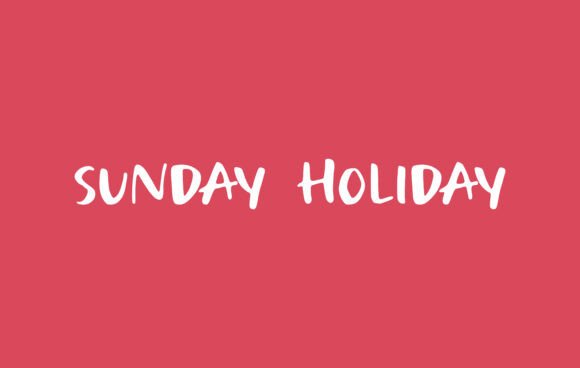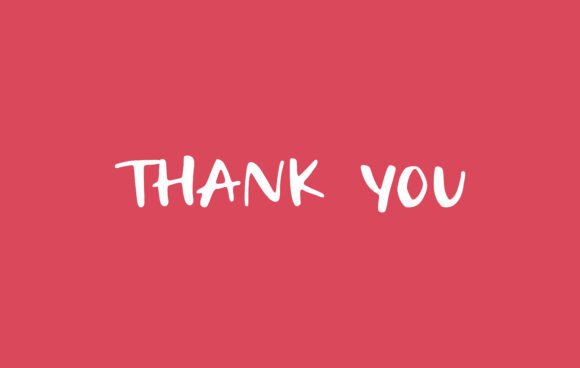
The Birth of a Beautiful Design
Have you ever been brainstorming ideas for a new project, only to have a sudden rush of creativity hit you? The words start flowing, and you can’t type them fast enough. It’s that magical moment when your ideas come alive, and you know exactly what you want to create. For designers, this feeling is a regular occurrence, but it’s the tools we use that can make all the difference. That’s where the Bursting Font comes in – a stunning, authentic handwritten font designed to elevate your creative vision.
Bursting Font is more than just a font; it’s a partner in bringing your ideas to life. Its romantic touch and legibility make it perfect for a wide range of designs, from magazine headlines to wedding invitations. Whether you’re a seasoned designer or just starting out, the Bursting Font is an invaluable asset to your toolkit, capable of taking your projects to the next level.
Bursting Font Key Features
• Font Type: Script Font
• Size: 5,500+ glyphs, making it highly customizable
• Unique Characteristics: Dynamic, flowing lines that evoke a sense of energy and movement
• Language Support: Supports multiple languages, including Latin, Cyrillic, and Greek scripts
Bursting Font Review
When I first laid eyes on Bursting Font, I was immediately struck by its ✨ energetic and playful vibe. The font’s irregular, bubbly shapes and unpredictable letter spacing create a sense of dynamic movement that’s perfect for adding a touch of whimsy to your designs. I particularly love how the font’s irregularities make it feel more human and less robotic, giving it a friendly and approachable feel.
The font’s versatility is also a major plus – it’s just as effective for creating bold, eye-catching headings as it is for adding a touch of personality to body text.
• ✨ Energetic and playful vibe
• ✨ Versatile and effective for headings and body text
• ✨ Irregular, bubbly shapes create a sense of dynamic movement
• ⚠️ Limited legibility at small font sizes
• ⚠️ May not be suitable for formal or professional applications
• ⚠️ Can be overwhelming if used in large quantities
Overall, I think Bursting Font is a great choice for designers looking to add a bit of personality and whimsy to their projects. While it may not be suitable for every application, I think its unique energy and versatility make it a valuable addition to any designer’s toolkit.
Alternatives to “Bursting Font” for Designers
1. Impact Font
Impact is a sans-serif font known for its bold and condensed style. It’s ideal for use in headlines, titles, and short phrases where emphasis is required. Impact is similar to Bursting Font in its boldness but has a more geometric and condensed appearance, making it a better choice for shorter text.
2. Arial Black
Arial Black is a sans-serif font that’s similar to Bursting Font in its boldness but has a more rounded appearance. It’s suitable for use in headings, titles, and short paragraphs where a bold yet readable font is needed. Arial Black is a good alternative to Bursting Font for those who want a more modern and sleek look.
3. Rockwell Font
Rockwell is a serif font that’s known for its bold and elegant style. It’s ideal for use in headings, titles, and short paragraphs where a classic and sophisticated look is required. Rockwell is different from Bursting Font in its serif style, making it a better choice for longer text where readability is a concern.